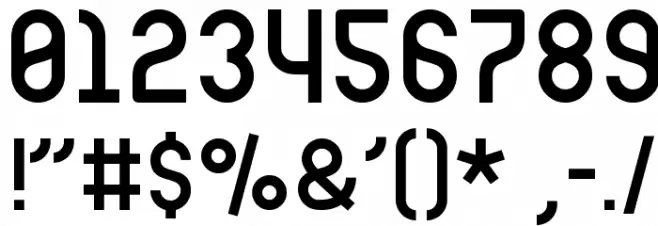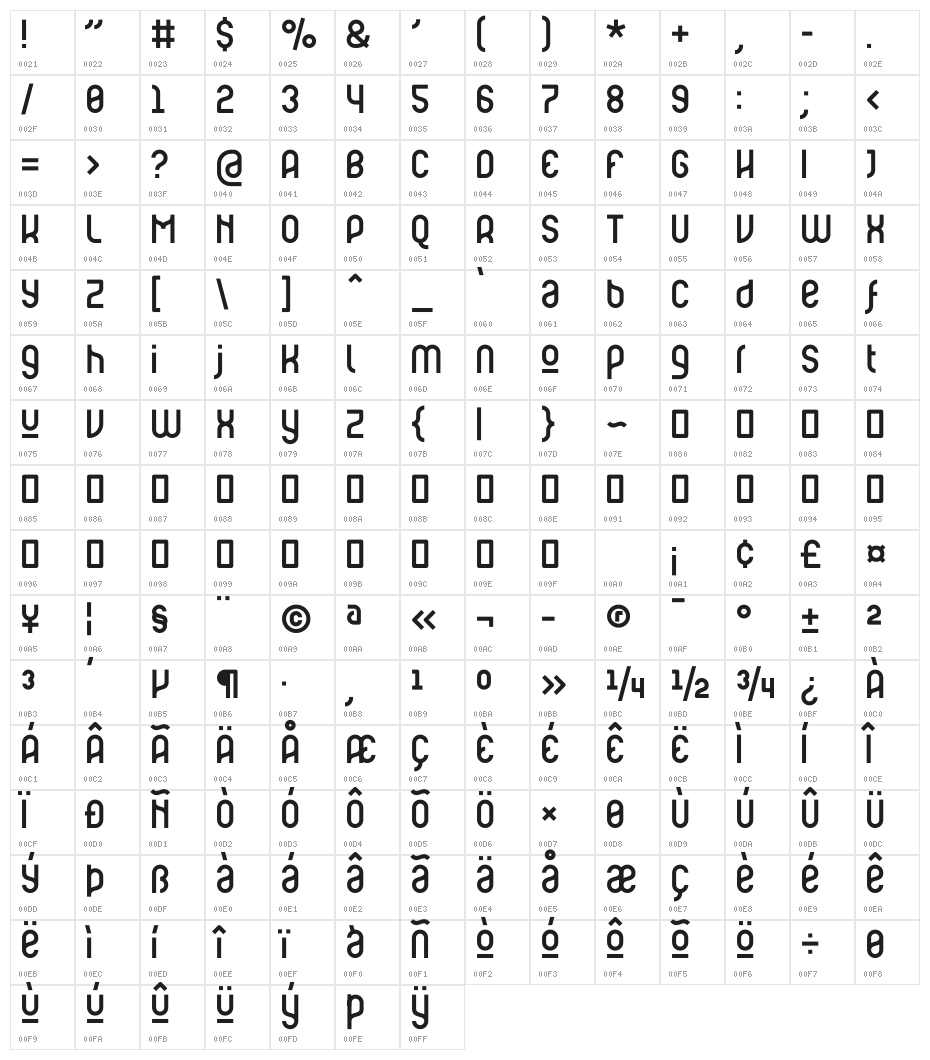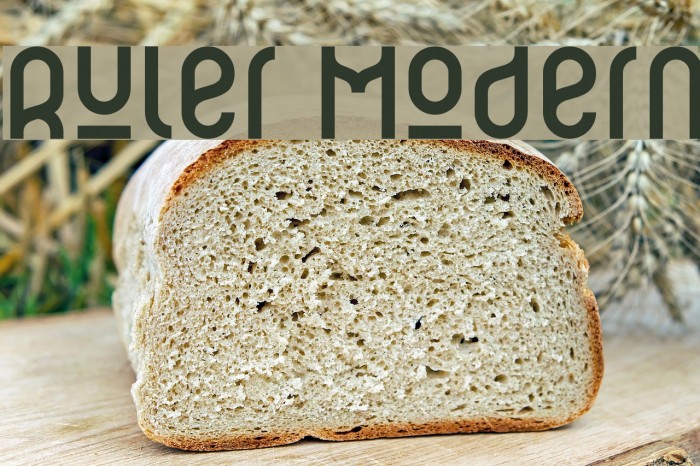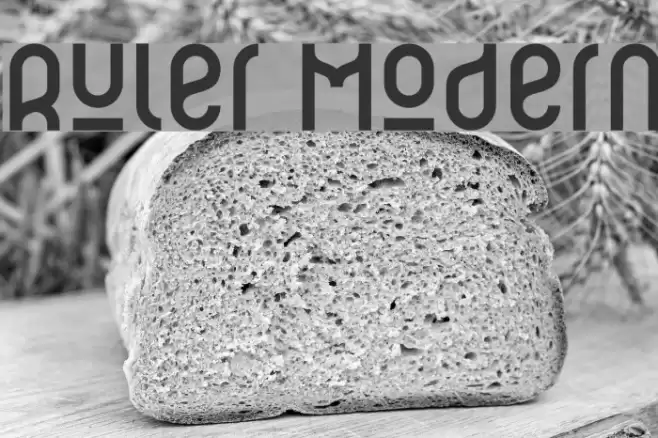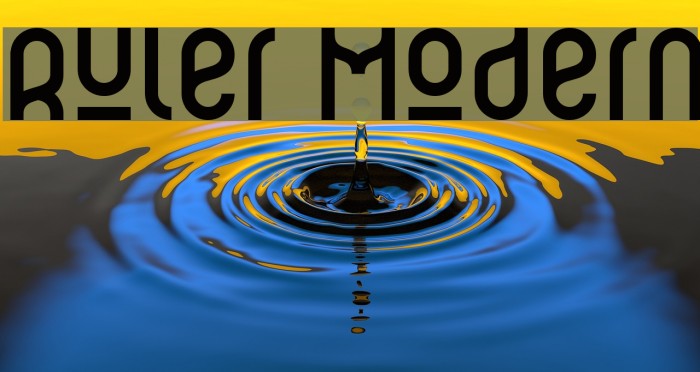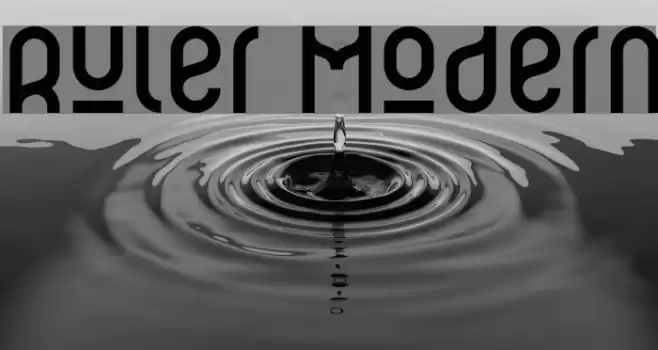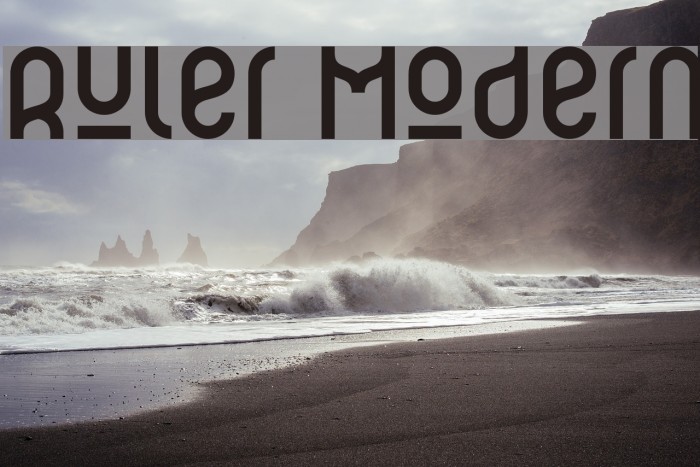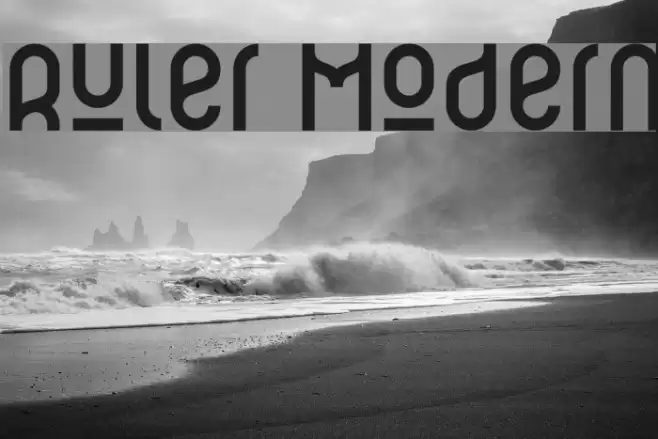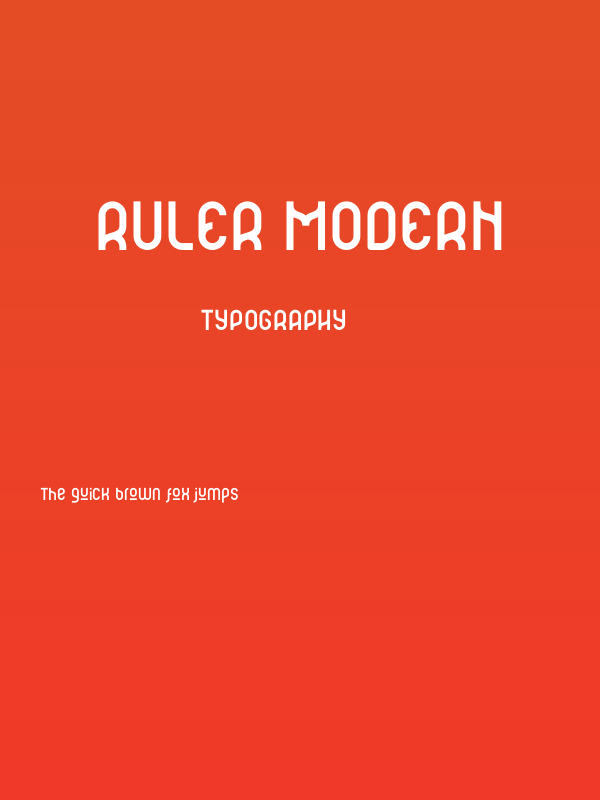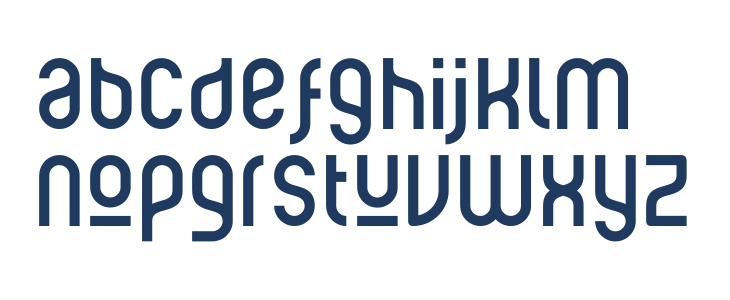
Ruler Modern Font
Ruler Modern Description
This font features a modern and geometric design with a distinct, bold appearance. The characters are constructed with clean lines and rounded edges, giving it a futuristic and sleek look. The uppercase letters are uniform in height, while the lowercase letters maintain a consistent style with slight variations in curvature. The numerals are clear and easy to read, with a similar geometric style. Special characters are well-integrated, maintaining the overall aesthetic. The font's design is both functional and visually appealing, making it suitable for a variety of applications.
| Proposed Projects | Ideal for branding, advertising, and digital media projects that require a contemporary and eye-catching typeface. |